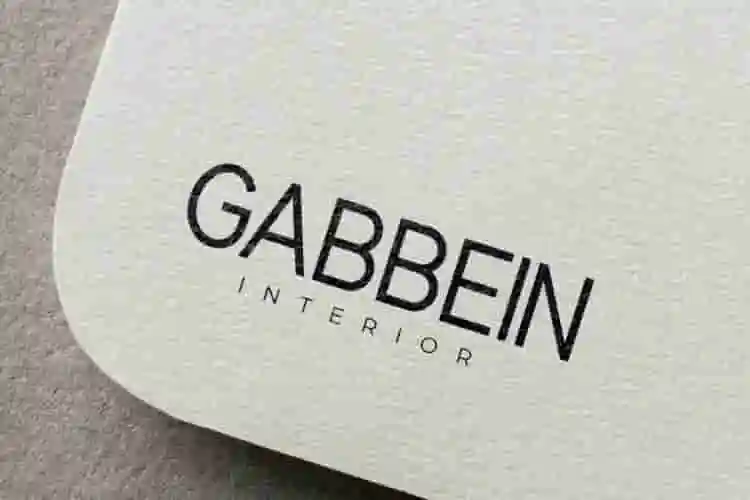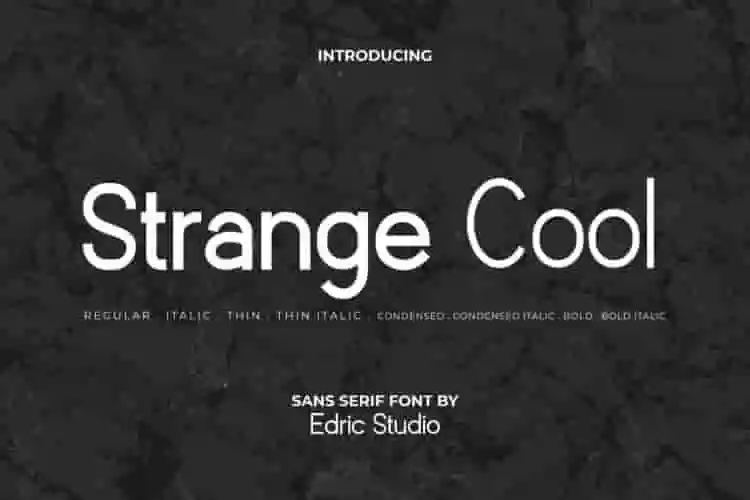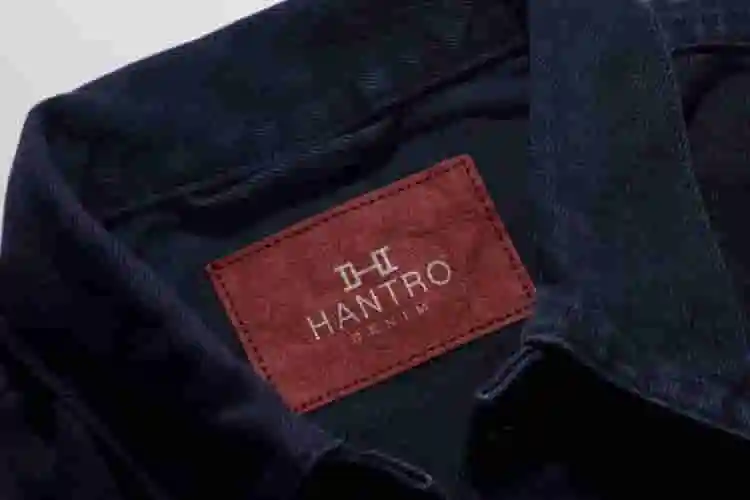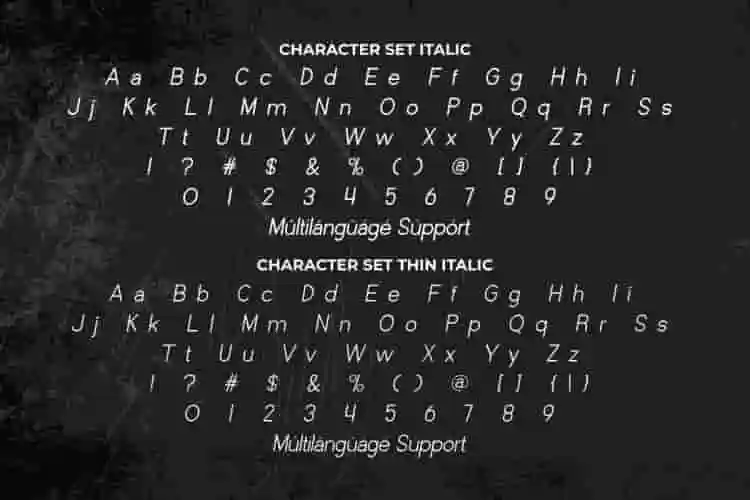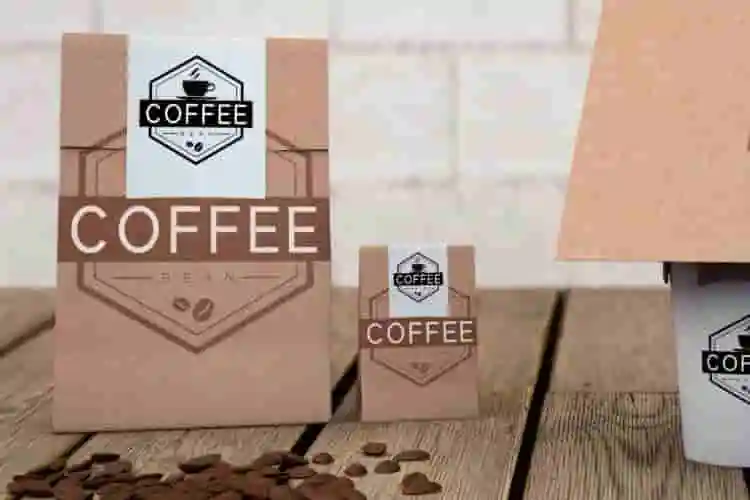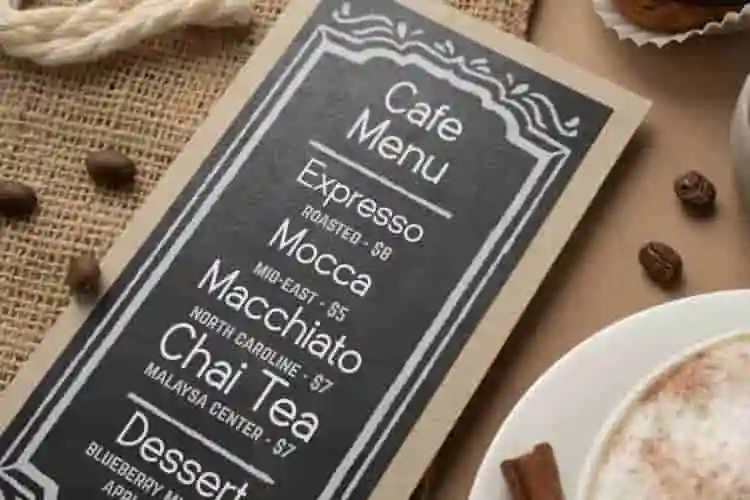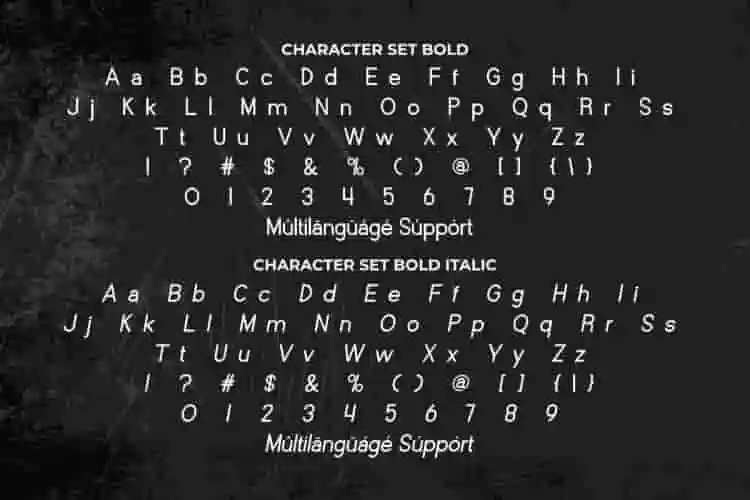
Strange Cool Sans Serif Font
Strange Cool Font is a clean casual sans serif font created by EdricStudio. This font provides eight styles: Regular, Thin, Italic, Thin Italic, Condensed, Condensed Italic, Bold, and Bold Italic that you want to use right away. This font is inspired by classic typefaces on top coffee brands making it suitable for any industry, such as architect, author, barber, café, clothing brand, furniture, movie, photography, printing, publishing, real estate, restaurant, etc.
Strange Cool Font comes with a full set of Uppercase and Lowercase Basic Characters, Number, large range of Punctuation and Symbol. It has a stunning characters set, perfectly managed with well spaced and kerning. Strange Cool Font will be able to complement for any project (with extended license) including: body text, brand logo, brochure, catalog, header, invitation, label, packaging design, poster, screen print, signage, stationery, sticker, watermark, website, and anything related to the use of slick sans serif.
Looking for a modern sans serif font that stands out from the crowd? Meet Strange – a cool, minimalist sans serif typeface crafted for designers who dare to be different.
Whether you’re working on a bold logo, a clean website UI, or a stylish brand identity, Strange delivers that perfect balance of simplicity and character. With sleek lines and unconventional geometry, this font gives your design projects a unique edge — without sacrificing readability.
• Unique Letterforms
• Versatile Use